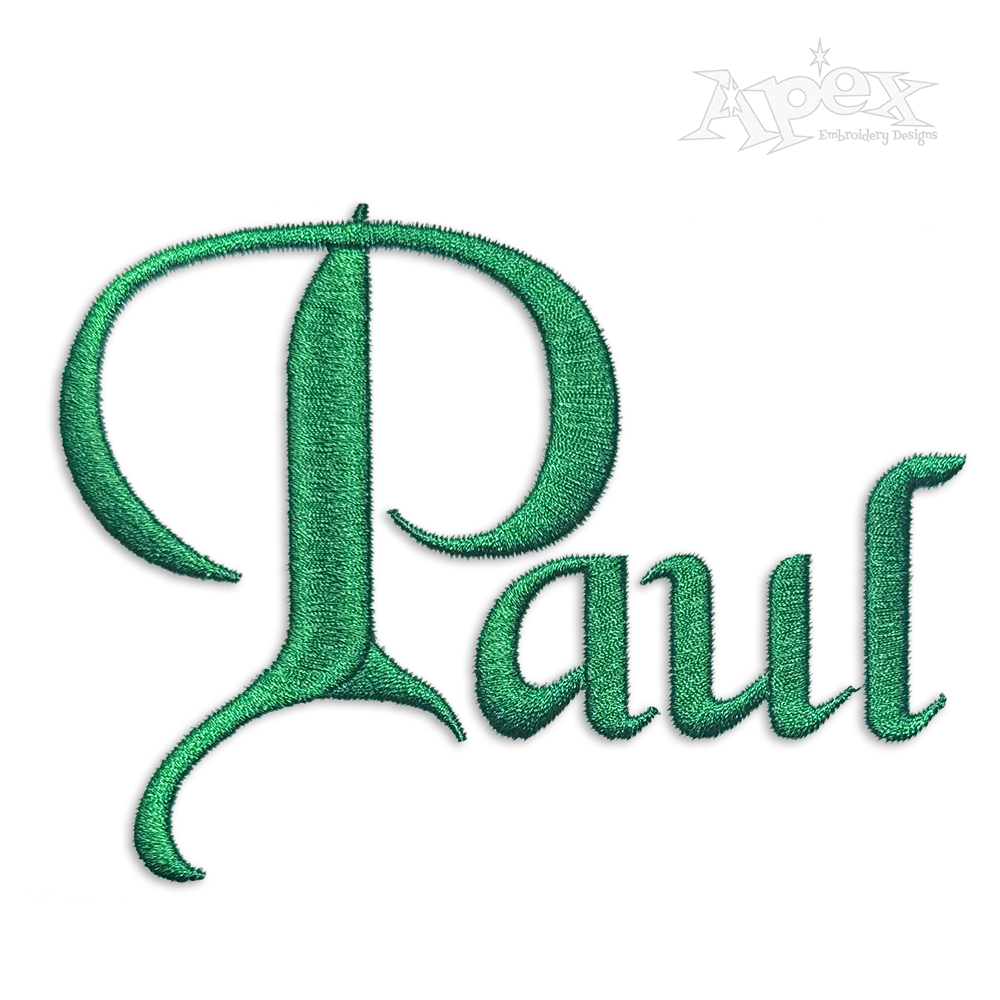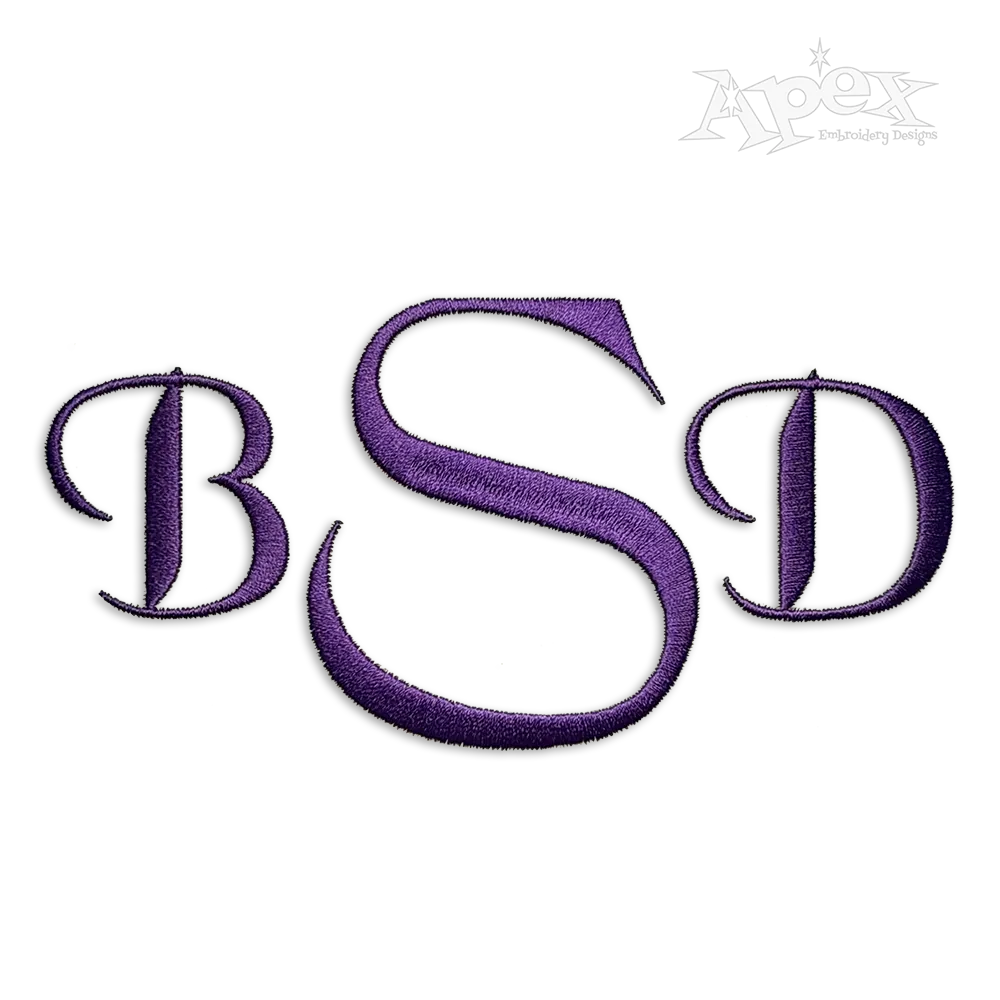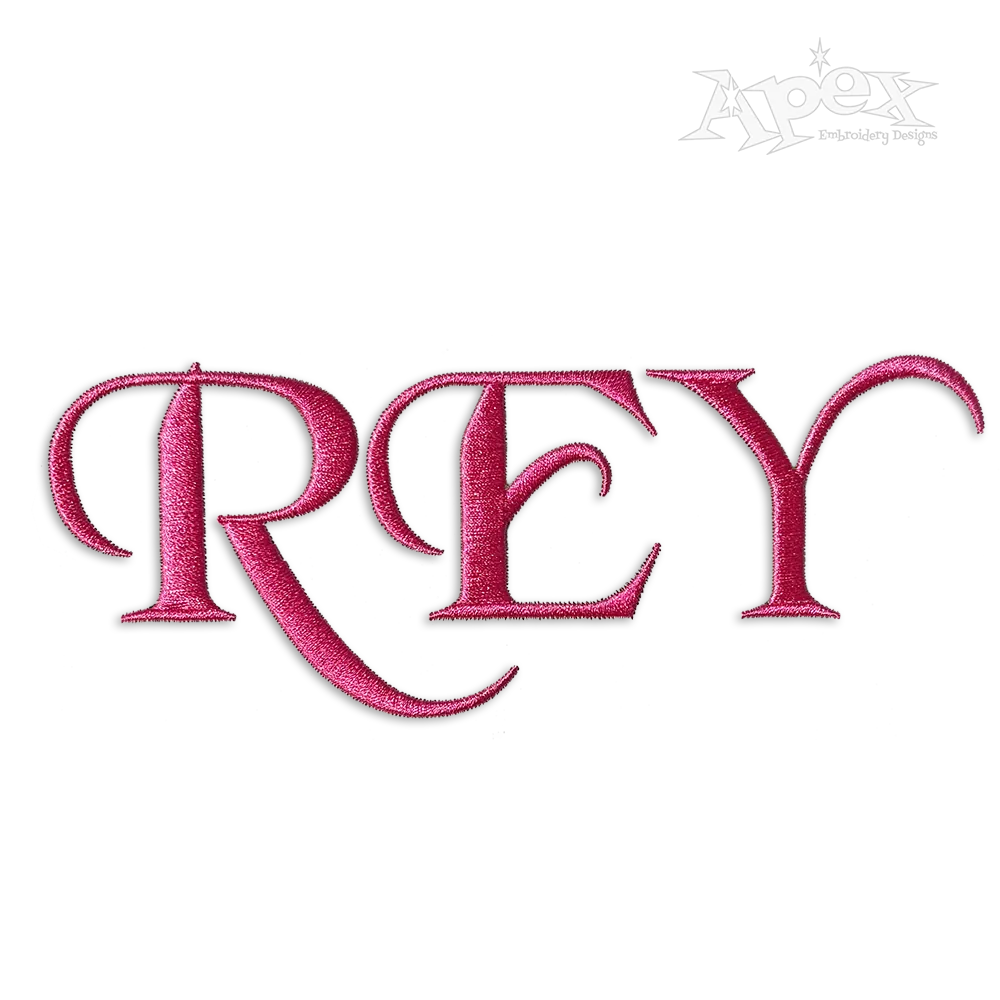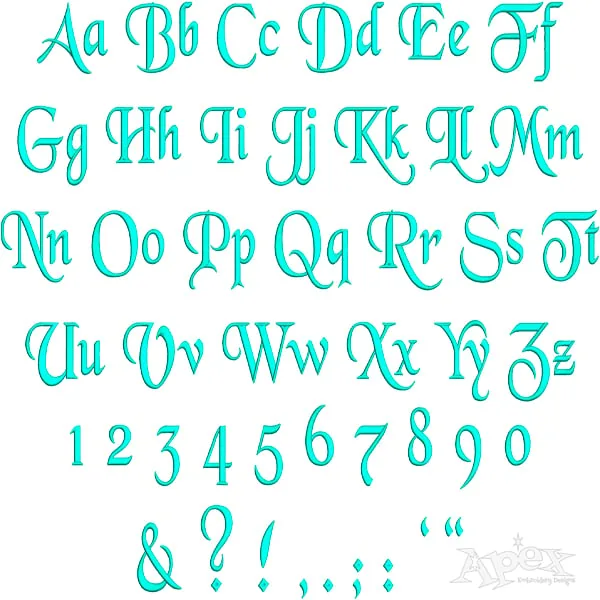
Pete Script Embroidery Font
Born from the nostalgic warmth of vintage bedtime storybook illustrations, the Pete Script Embroidery Font captures an effortless balance between playful whimsy and tailored sophistication. As digitizers, our goal was to translate the fluid charm of ink drawn softly across a page into glistening, tactile threadwork. Each letterform carries a jaunty, approachable cadence that feels immediately welcoming, making it an exquisite choice for custom monogramming and heirloom embroidery. Whether stitched onto plush knitwear or crisp cotton weaves, this satin stitch alphabet envelops every name and phrase in a cozy, artisanal grace.
Project Ideas for Pete Script
- Storybook Reading Pillows: Stitch encouraging titles or a child’s name directly across the exterior book pocket of an envelope reading cushion.
- Bespoke Nursery Heirlooms: Personalize soft waffle-weave baby blankets, crib skirts, and keepsake memory quilts with names, dates, or sweet storybook quotes.
- Handcrafted Children’s Apparel: Add custom monograms to relaxed fleece pullovers, knit cardigans, and sun hats for an elevated boutique finish.
- Personalized Canvas Totes: Transform utilitarian library bags and weekend market totes into treasured personalized gifting pieces.
- Family Holiday Keepsakes: Embroider classic names along the cuffs of velvet or linen holiday stockings for a cohesive, hand-detailed mantle display.
- Center Chest & Yoke: Float a singular name or initial sequence across the center chest of children’s sweaters or casual sweatshirts for a clean, timeless appeal.
- Diagonal Corner on Linens: Tilt single initial monograms at a 45-degree angle in the lower right corner of heirloom blankets or hemstitched cocktail napkins.
- Pocket Panel Center: Position the 3-inch or 4-inch letters centered across library tote pockets or apron bibs where the fluid script can command full attention.
- Flange and Border Placement: Run embroidered phrases along pillow borders or quilt sashing, allowing the relaxed lettering to guide the eye along decorative seamlines.
Pete Script Craft & Letterform Details
Digitizing a playful, casual script requires meticulous technical discipline to ensure that relaxed curves do not turn into stiff, disjointed stitches. Pete Script is distinguished by its open, inviting counter-spaces, gentle terminal teardrops, and unhurried connector strokes. When drafting the stitch paths, we engineered specialized satin angles that glide smoothly through every turn, letting your embroidery thread reflect light with fluid, organic continuity. The underlying foundation utilizes balanced running and zig-zag underlay that prevents thread sinkage into high-pile fabrics while preserving the soft, supple hand of lighter textiles. Every glyph stitches cleanly and effortlessly, offering seasoned artisans and passionate hobbyists an exceptionally polished finish from the first stitch to the final tie-off.